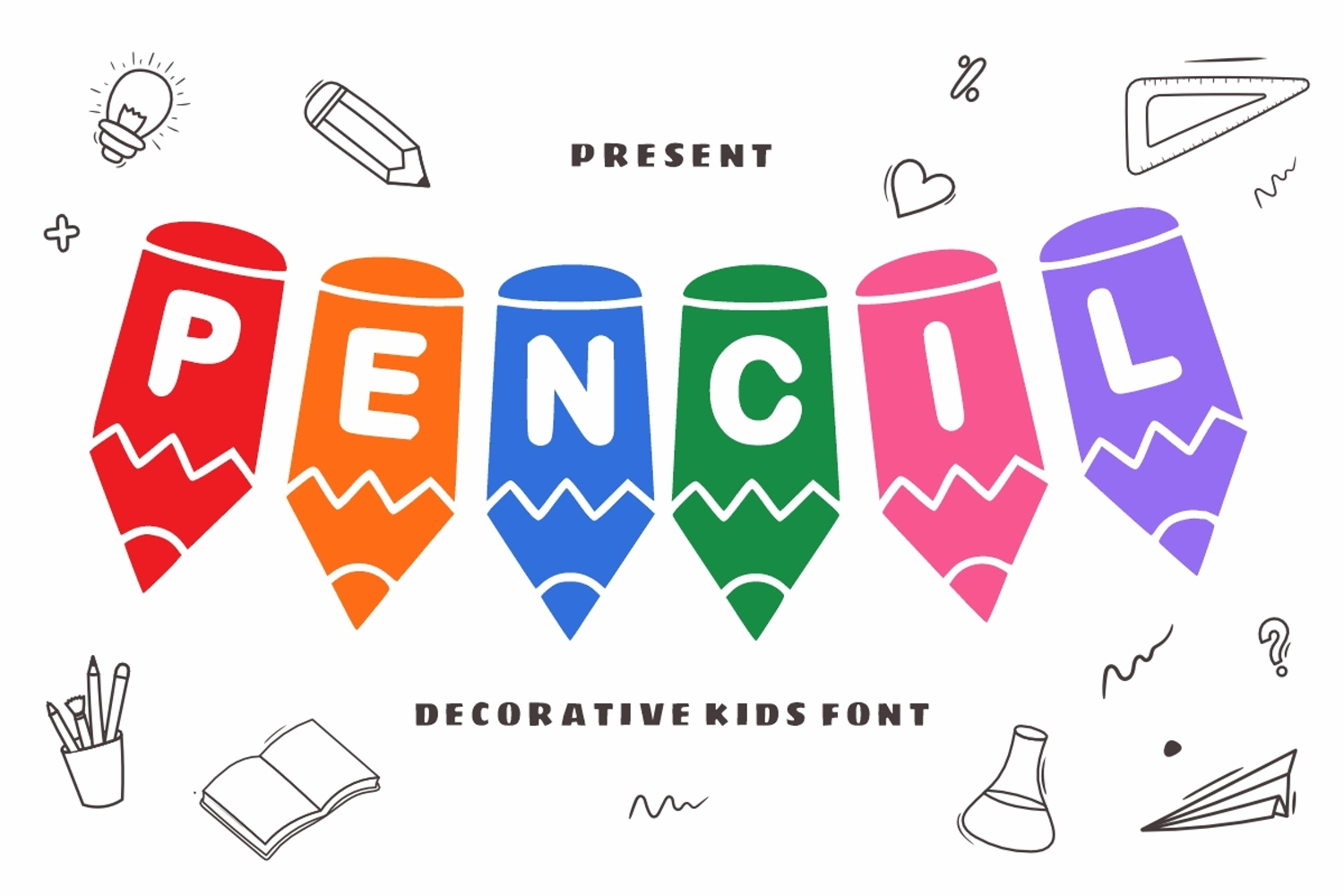
Pencil
Pencil is a pencil-drawn banner decorative font with letters. Add it to each of your promotion materials, kids' books, price tags, party invitations, banners, gatherings, or pretty much any design that requires a touch of youth and joy